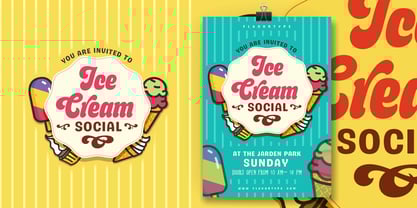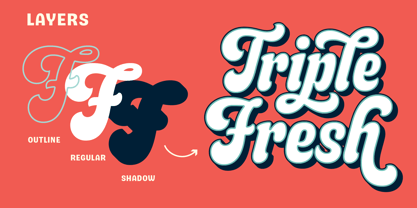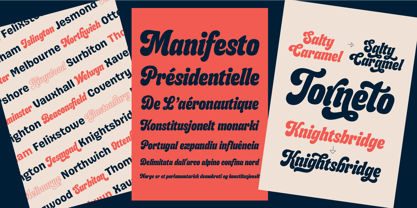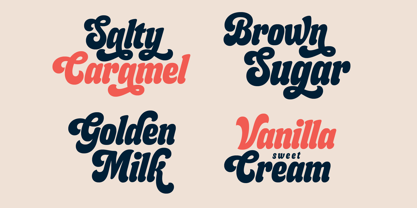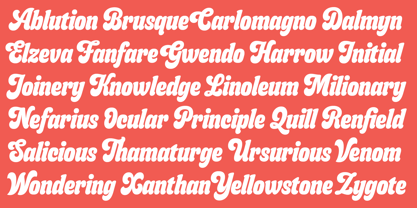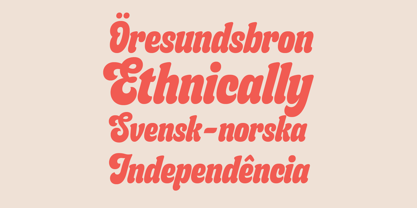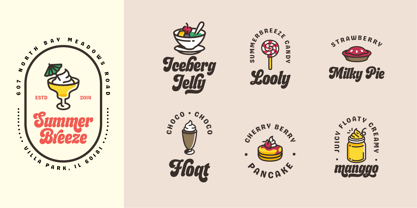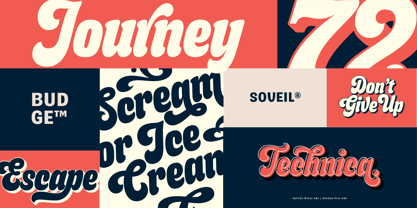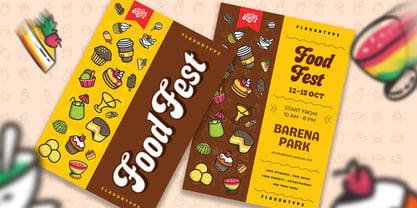
Budge Font
The Budge Font is perfect for friendly startup branding, approachable small business communications, casual social media graphics, community organization materials, local service provider signage, accessible public communications, informal presentation designs, neighborhood business identities, welcoming educational materials, and down-to-earth marketing campaigns.
What makes the Budge Font so exciting is its perfect balance of casual approachability with reliable professionalism that creates an ideal typeface for businesses seeking to communicate friendliness without sacrificing credibility and trustworthiness. This welcoming typeface features comfortable letterforms, accessible character spacing, and down-to-earth design elements that perfectly capture the essence of genuine human connection and authentic business relationships. The font's approachable personality and reliable functionality make it an exceptional choice for small businesses, community organizations, and service providers seeking to communicate accessibility, trustworthiness, and genuine care with warm professional appeal.
The Budge Font family includes friendly variations and accessible alternates, featuring multiple weight options, comfortable character styles, and welcoming design elements. Each variation maintains the signature approachable appeal while offering different levels of visual warmth and professional reliability, giving designers extensive possibilities for crafting genuine communications and trustworthy brand personalities that connect with local communities and everyday audiences.
The comfortable design characteristics of Budge Font showcase masterful accessible typography craftsmanship, with each letter carefully crafted to promote readability and welcoming appeal while maintaining professional standards and visual consistency. The font's comprehensive character set includes uppercase and lowercase letters, numerals, friendly punctuation, and accessible symbols, ensuring complete functionality for diverse community projects and local business applications.
Expertly designed for both digital and print accessible applications, this reliable font maintains its approachable character and professional warmth across various sizes and formats. From neighborhood business signage to detailed community communications, Budge Font adapts comfortably to any local design challenge while preserving its distinctive friendly personality and trustworthy appeal.